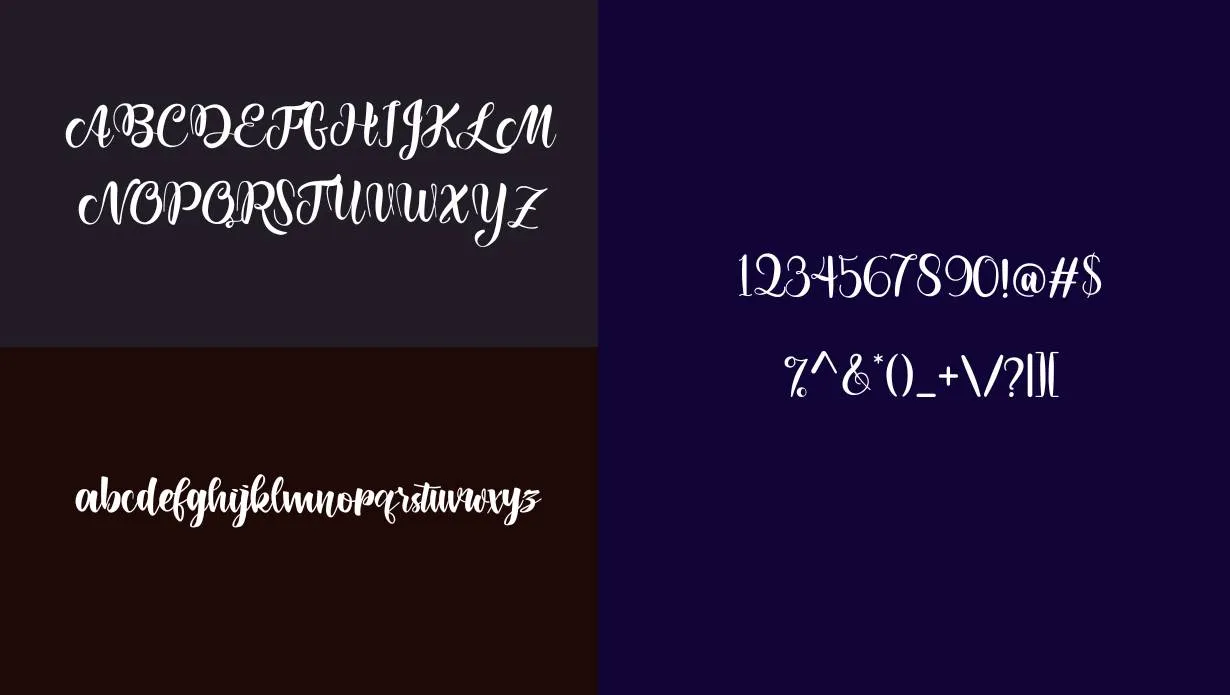
Lettyh Font is a sleek and modern typeface, ideal for corporate branding, editorial design, and website use. Supported by file formats like OTF, TTF, and WOFF, it is adaptable to a variety of design software and web applications.
The clean and contemporary look of this font exudes professionalism and sophistication, making it a favored choice for a wide range of design needs, especially those requiring a sleek and modern aesthetic.